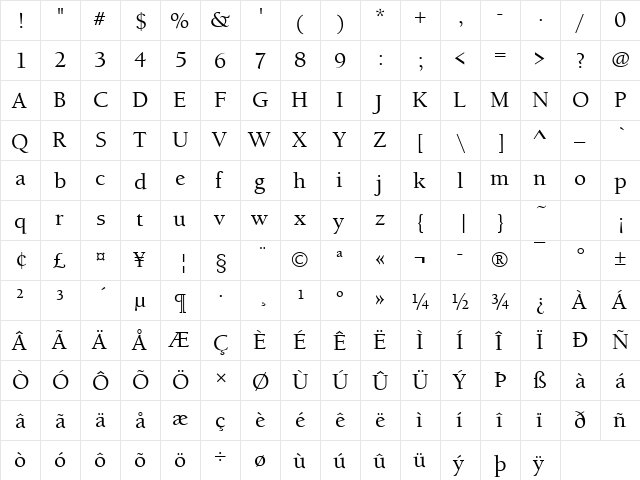
BerkeleyOldStyItcTMed Regular Font Preview
BerkeleyOldStyItcTMed Regular
Design Context for BerkeleyOldStyItcTMed Typeface
BerkeleyOldStyItcTMed is a composed and adaptable typeface that performs quietly and consistently across a wide range of design contexts.